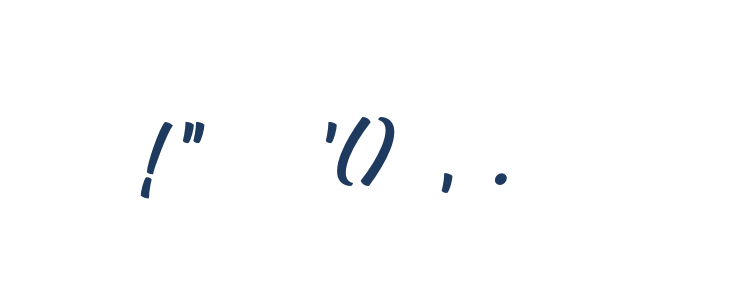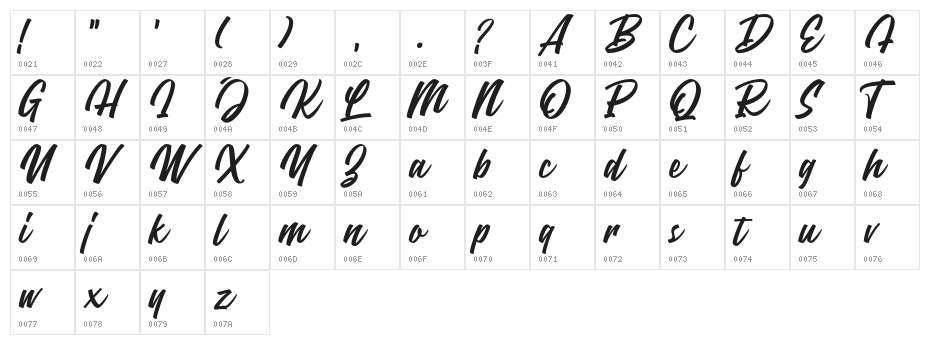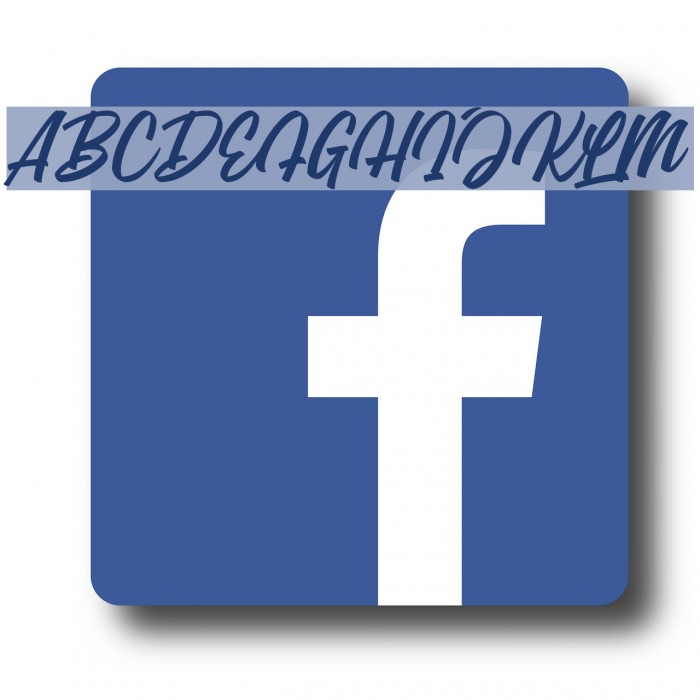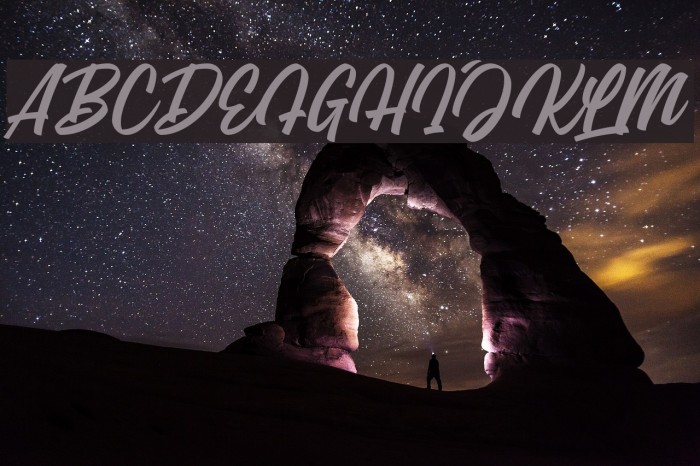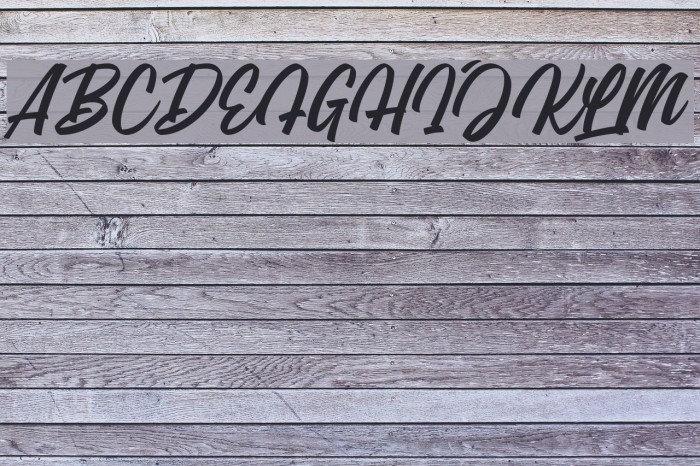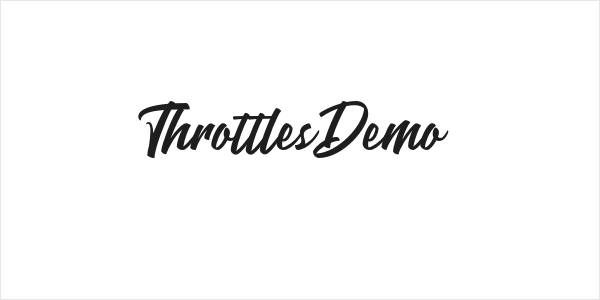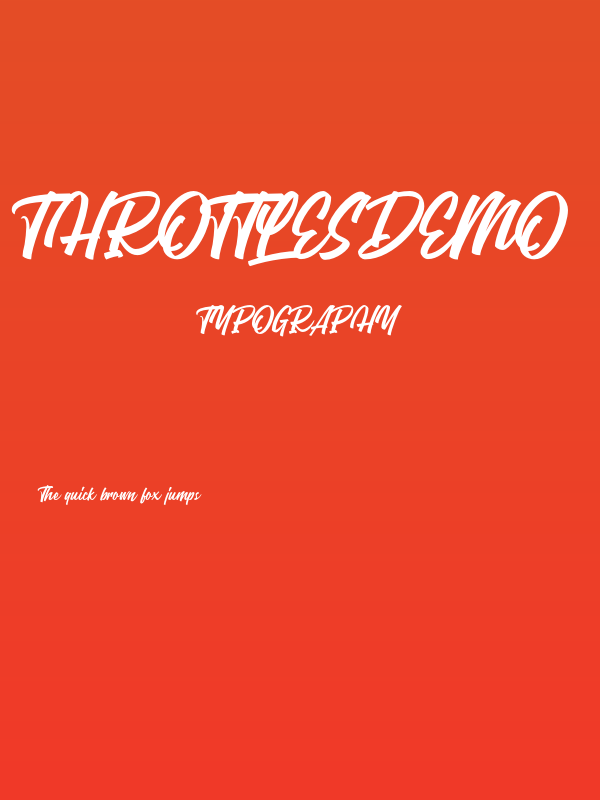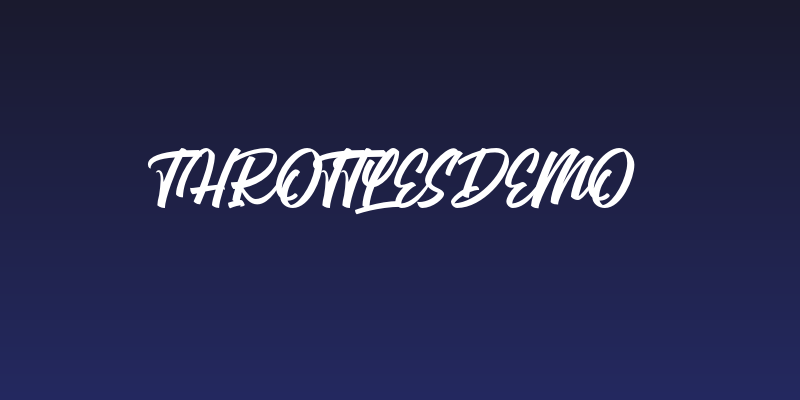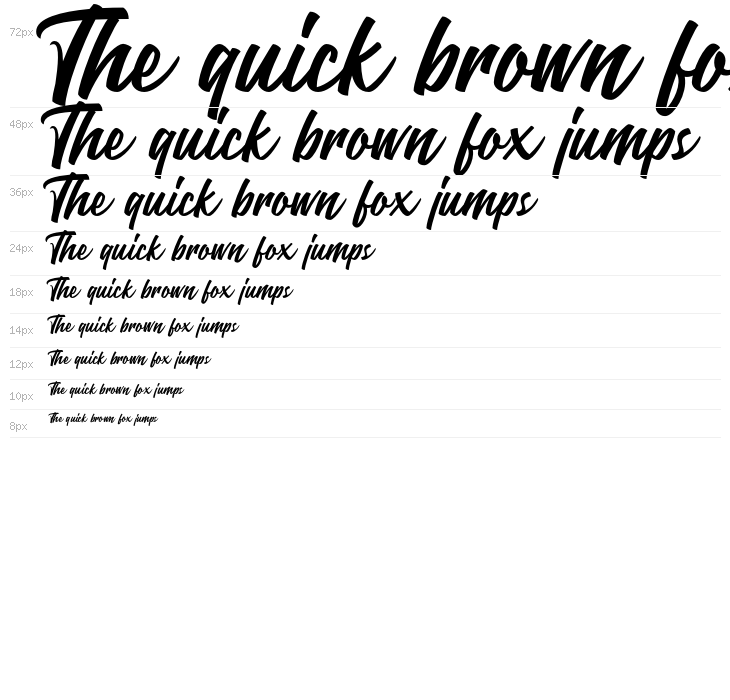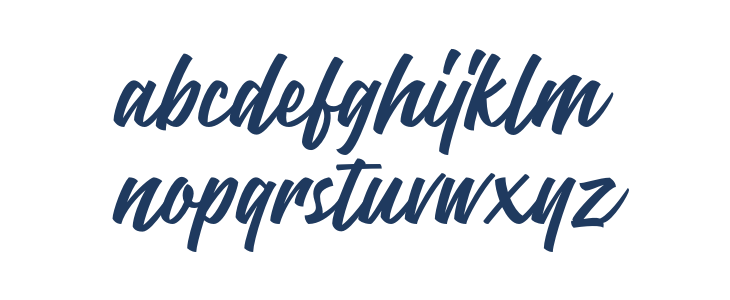
ThrottlesDemo Font
ThrottlesDemo Description
This font features a bold, expressive script style with a modern flair. The characters are connected, giving it a fluid and dynamic appearance. The strokes are thick and consistent, providing a strong visual impact. The uppercase letters are slightly more angular, while the lowercase letters maintain a smooth, cursive flow. The special characters are designed to match the overall aesthetic, ensuring a cohesive look across all text. This font is ideal for creating eye-catching headlines or logos that require a personal touch.
| Proposed Projects | Ideal for branding, logos, headlines, and social media graphics. |